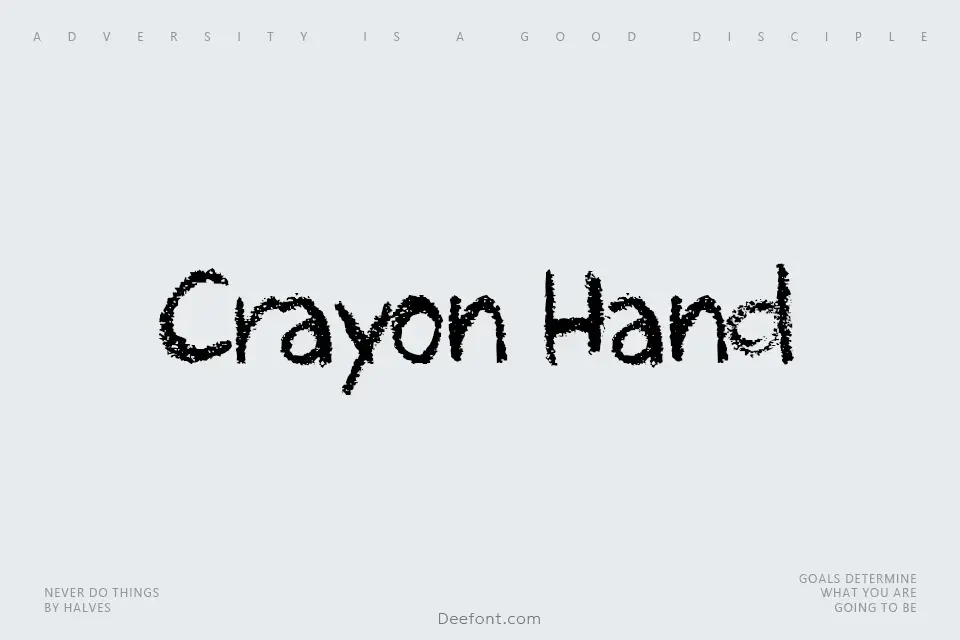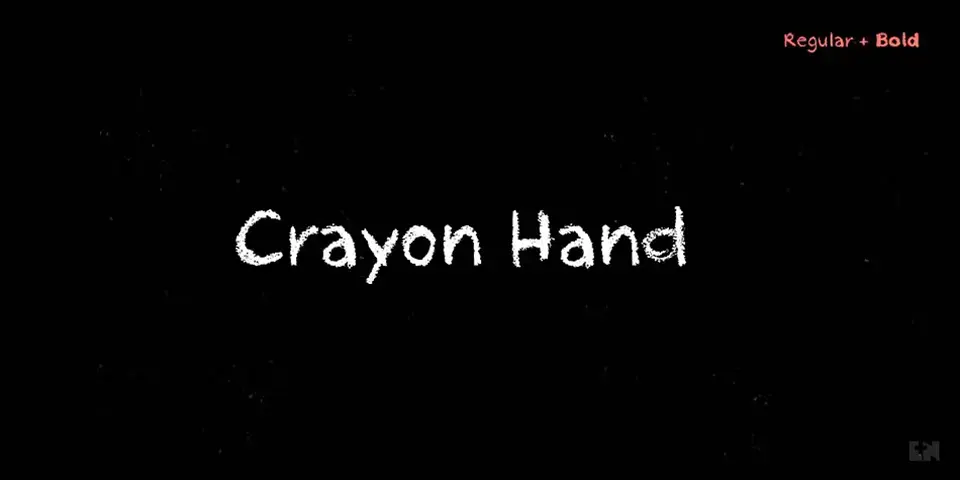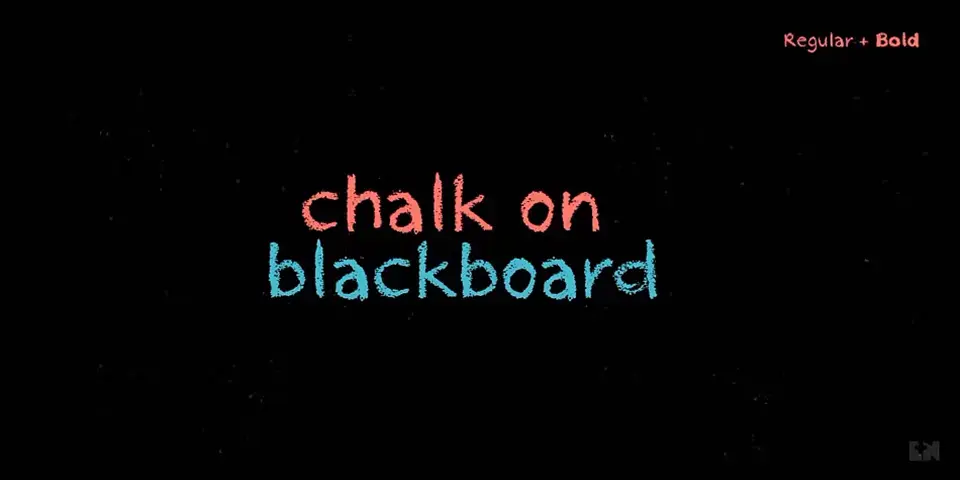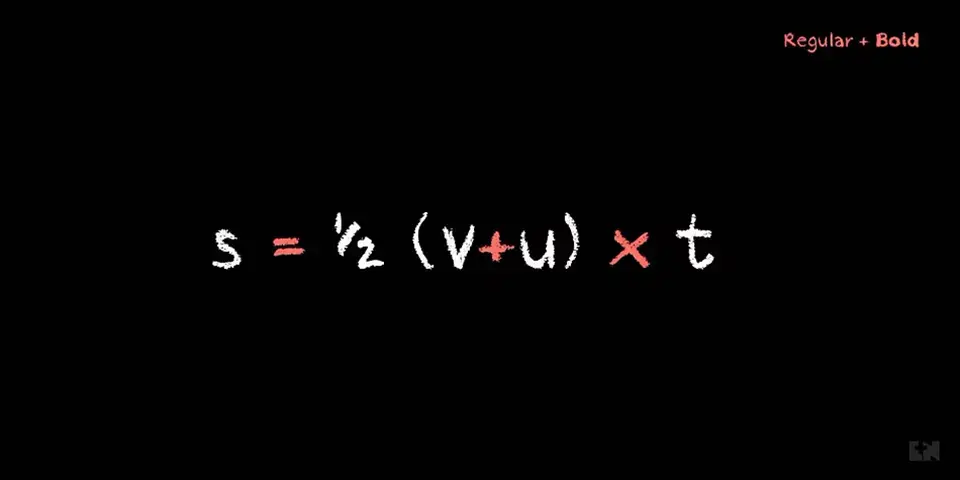
Crayon Hand Font
Crayon Hand is a charming handwritten display font that captures the organic, spontaneous feel of drawn lettering. Features sketchy, informal brush-like strokes with a casual, approachable aesthetic. Perfect for posters, greeting cards, branding, children’s illustrations, and creative titles. The extended character set includes West European diacritics, making it suitable for multilingual design work. Ideal for designers seeking authentic, hand-drawn typography that conveys warmth and personality in eye-catching display applications.